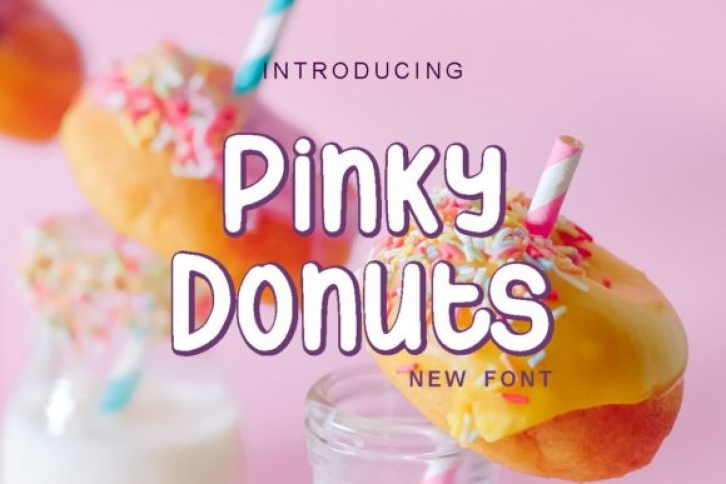
Pinky Donuts is a simple and sweet display font. Whether you use it for cartoon related designs, children games or just any creation that requires a lovely touch, this font will be an amazing choice.